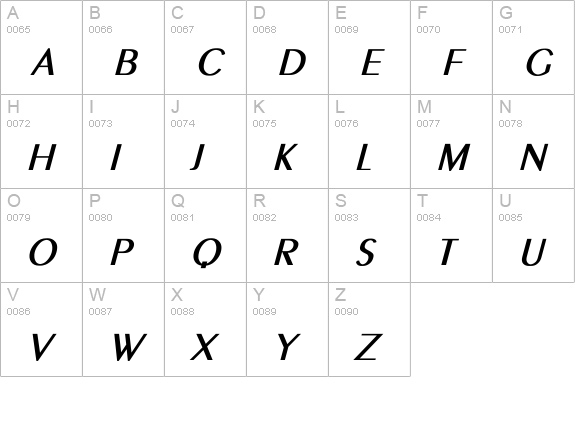
Larwell-Light Bold Italic Font Details
Larwell-Light Bold Italic is a refined, elegant, italic variant in the Larwell typeface family \xE2\x80\x94 well suited to elegant body text, refined sub-headings, and luxury branding.
Introducing Larwell-Light Bold Italic, a captivating and versatile font that effortlessly combines elegance with a touch of modernity. This font exudes sophistication and style, making it the perfect choice for a wide range of projects, from high-end branding to editorial design. Larwell-Light Bold Italic boasts an exquisite balance between boldness and delicacy, creating a visually striking impact that will captivate your audience. Its bold, yet refined strokes add a sense of confidence and authority, while the subtle italic slant adds a touch of elegance and flair. With its carefully crafted curves and meticulous attention to detail, Larwell-Light Bold Italic offers a sense of professionalism and refinement that is second to none. Its versatility allows it to effortlessly adapt to various design styles, from classic and timeless to contemporary and cutting-edge. And the best part? Larwell-Light Bold Italic is available for free download at FontsMarket.com. Yes, you read that right - this exceptional font can be yours without spending a dime. FontsMarket.com is your go-to source for high-quality fonts, and Larwell-Light Bold Italic is no exception. Whether you're a seasoned designer looking to enhance your font library or a novice just starting out, Larwell-Light Bold Italic is a must-have addition to your collection. Its free availability ensures that anyone and everyone can enjoy its beauty and versatility without breaking the bank. So why wait? Head over to FontsMarket.com now and indulge in the timeless elegance of Larwell-Light Bold Italic. Download it today and let your creativity soar to new heights with this remarkable font.